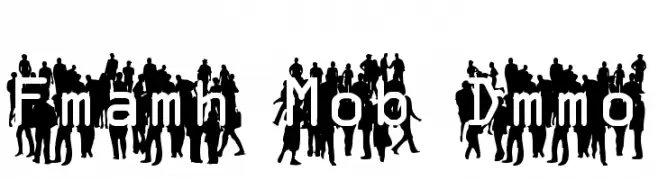
An artistic font with each letter formed by detailed illustrations of people in various activities.
A pictorial, silhouette-based font where each character is formed by groups of people in action.
A dynamic font with silhouettes of people, embodying energy and community.